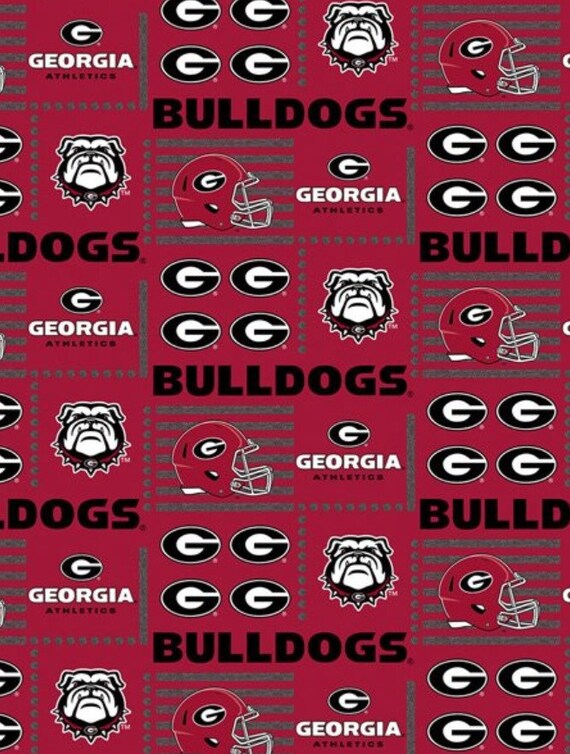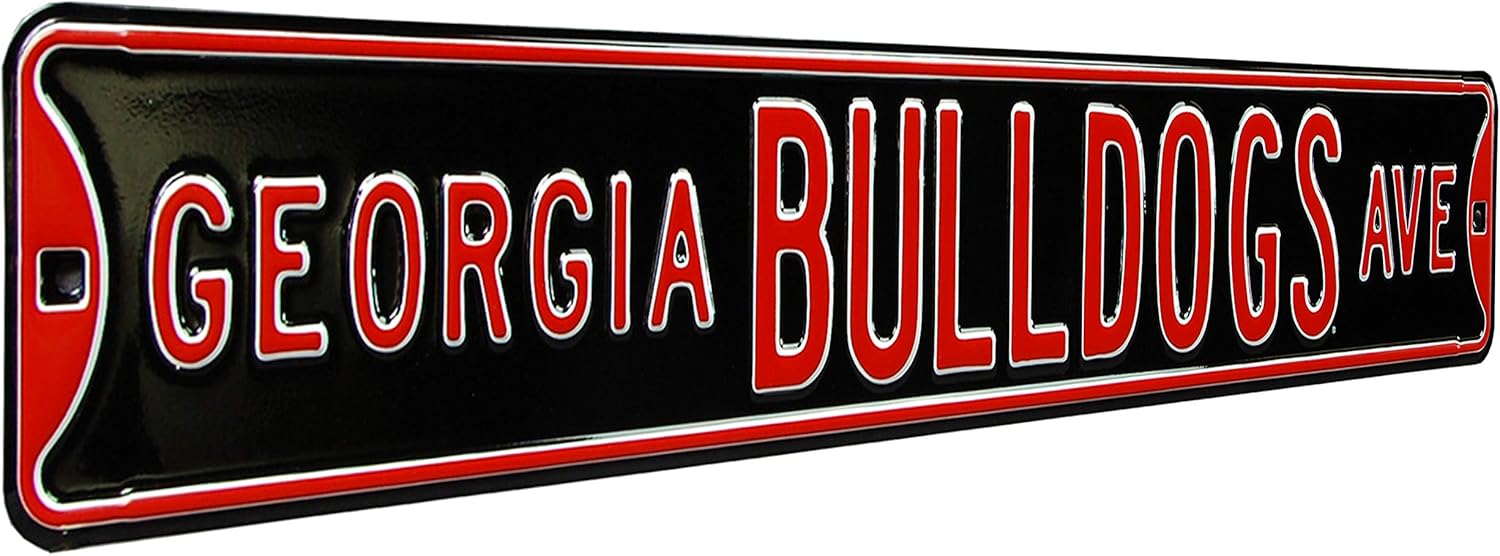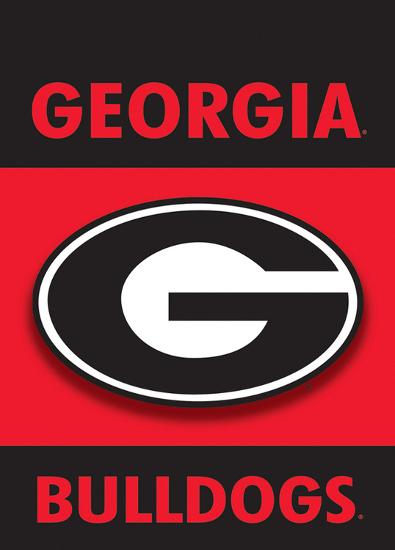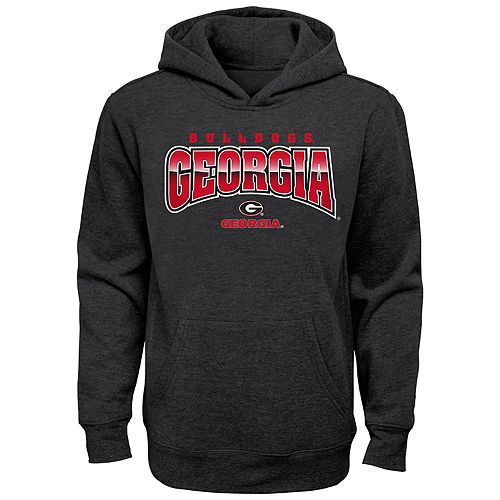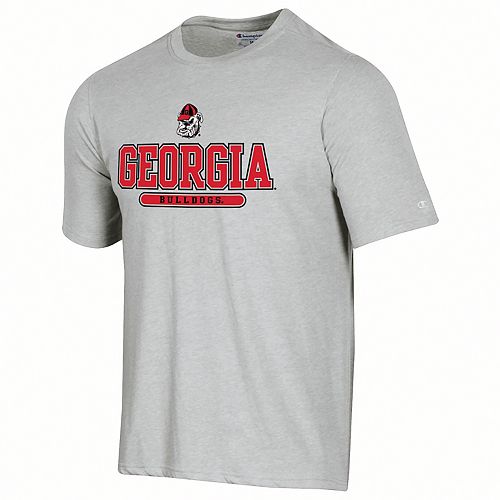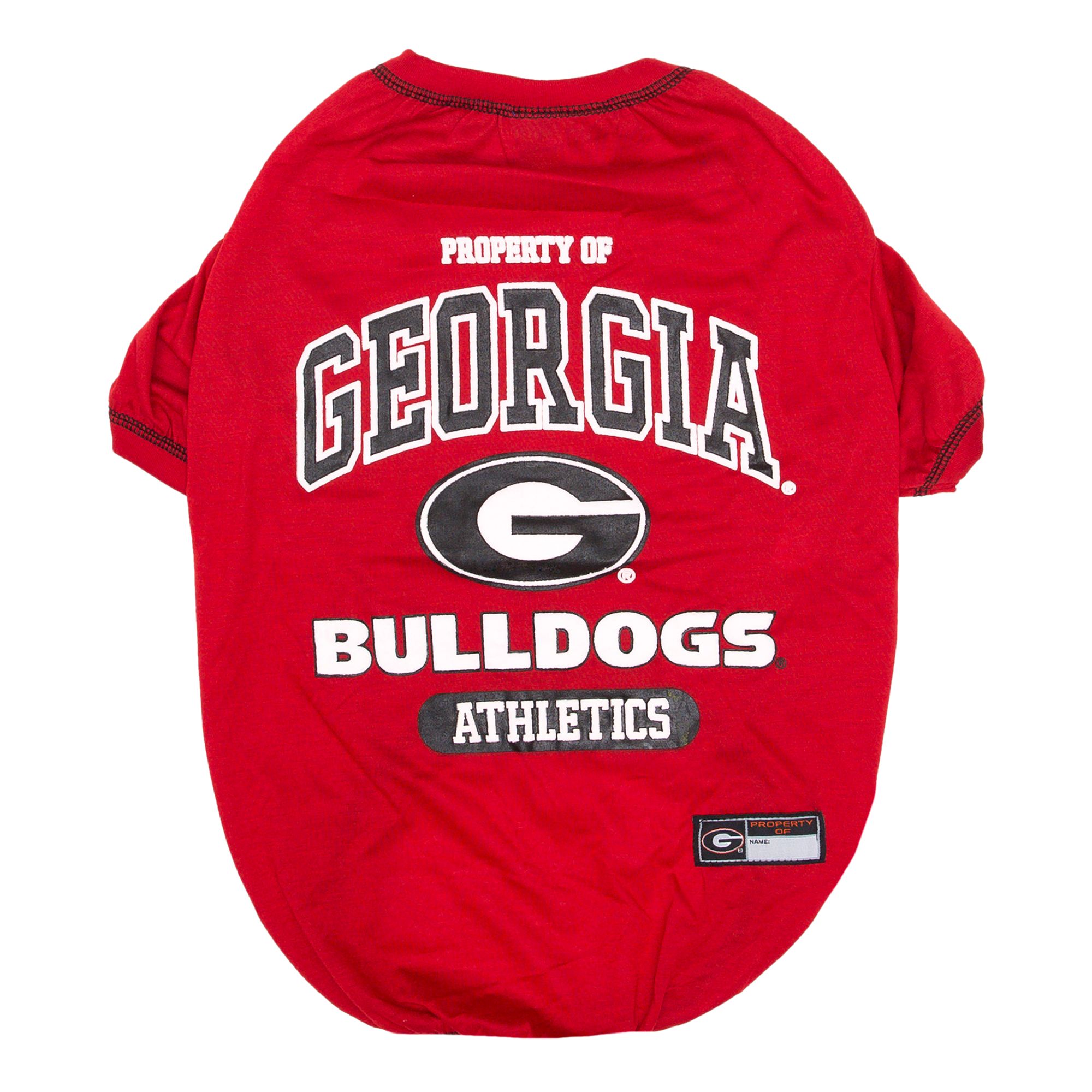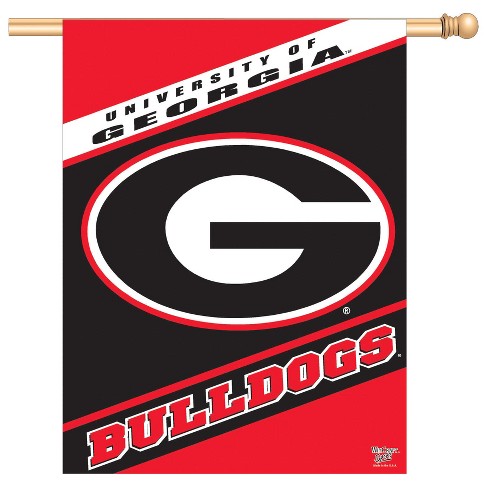
Ncaa Georgia Bulldogs Font
Ncaa georgia bulldog boldttf. A font based on the georgia bulldogs logo. The biggest change is the font on the jersey which is a bit more stylized and unique.